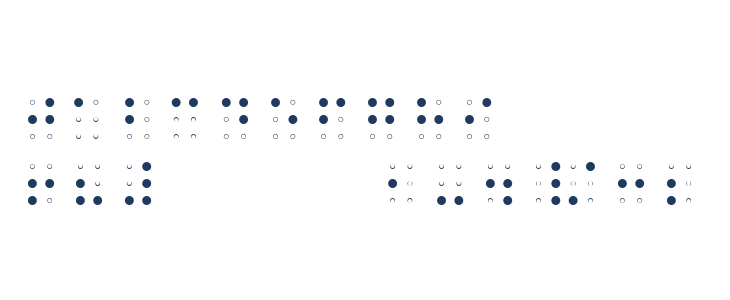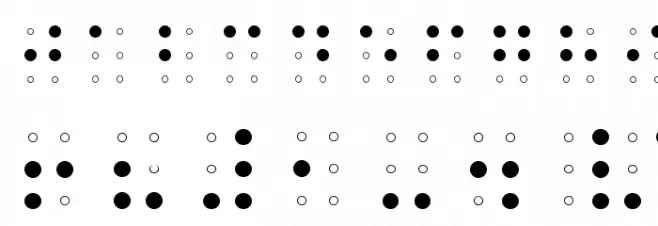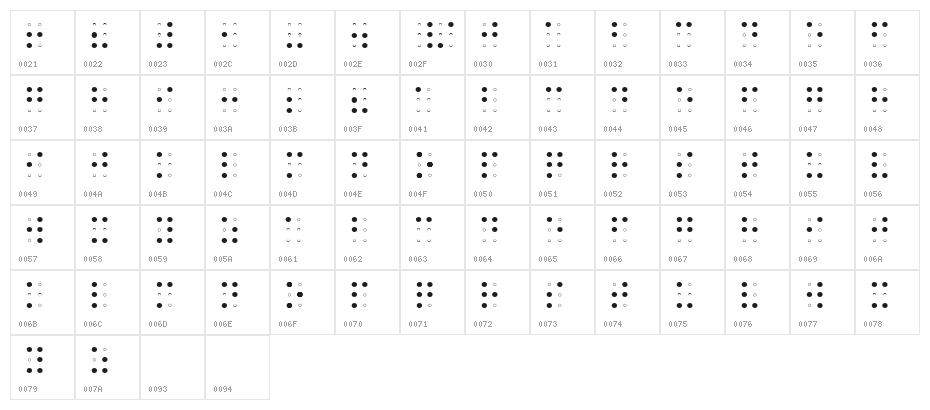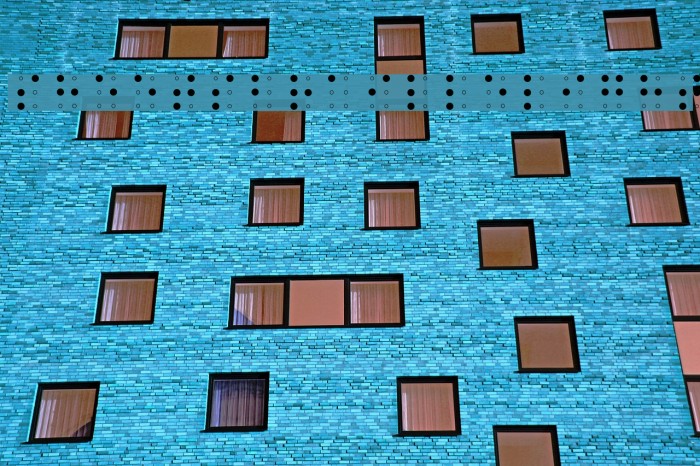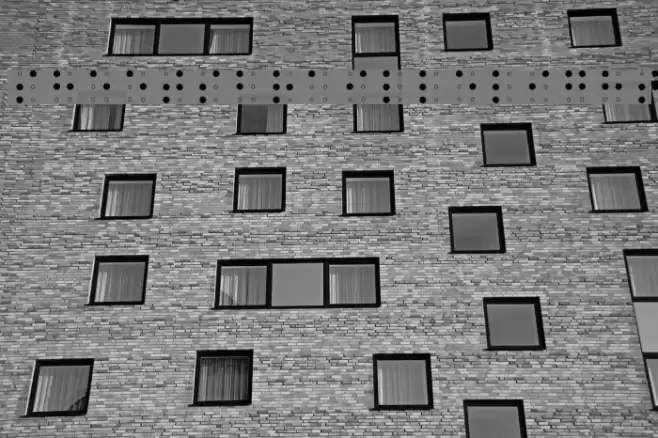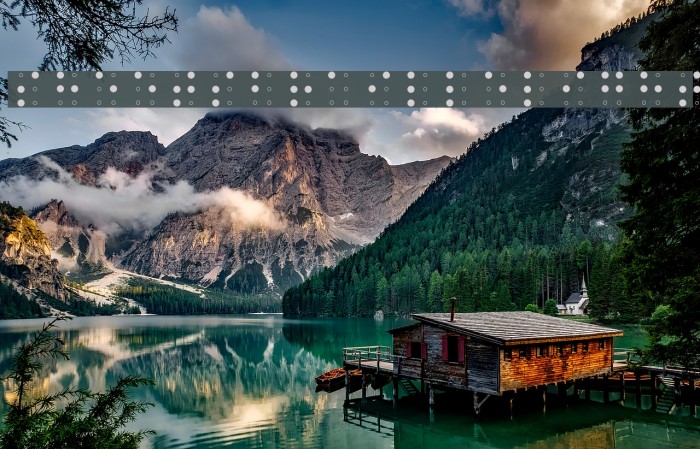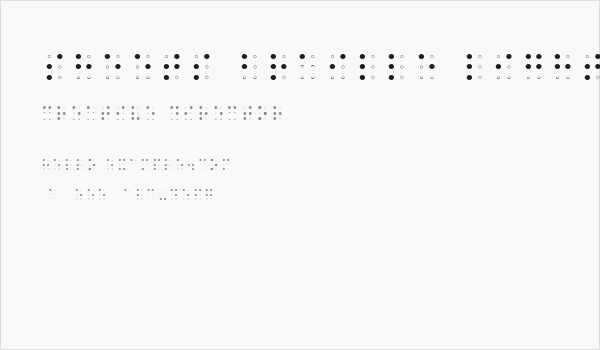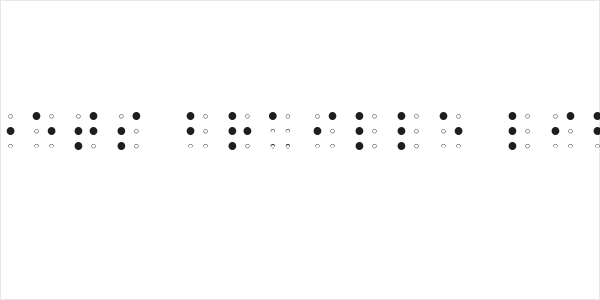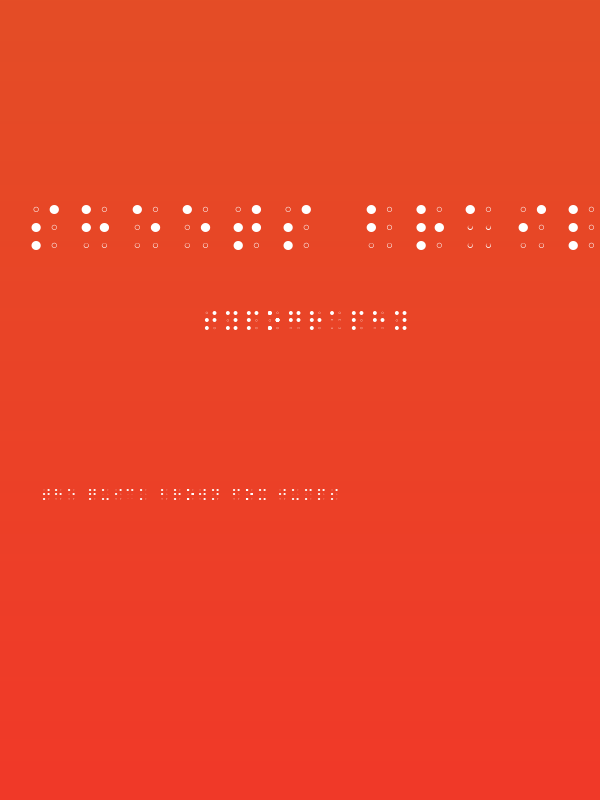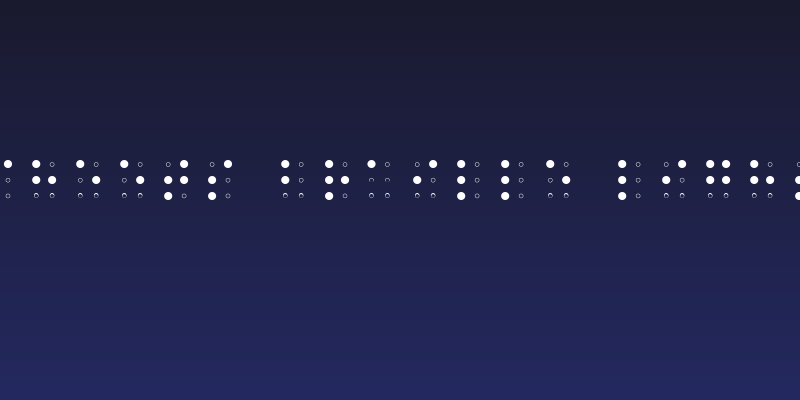
Sheets Braille Light Font
Sheets Braille Light Description
This font is a representation of Braille, a tactile writing system used by people who are visually impaired. It consists of patterns of raised dots arranged in cells of up to six dots in a 3x2 configuration. Each cell represents a letter, numeral, or punctuation mark. The design is minimalistic and functional, focusing on clarity and tactile readability. The dots are evenly spaced, providing a uniform appearance that is essential for tactile reading. This font is not only a tool for accessibility but also a symbol of inclusivity and communication.
| Overall Style | Functional, Inclusive |
| Use Case | Accessibility tools, Educational materials |
| Proposed Projects | Ideal for projects focused on accessibility, educational materials for the visually impaired, and inclusive design initiatives. |